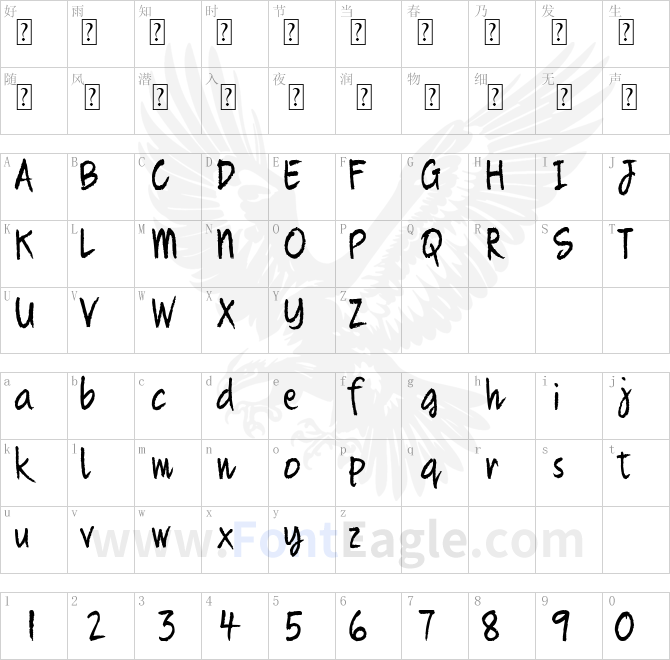
Quikhand-1 is a great font, widely used in graphic design, single-page menu design, poster design and other fields, and is deeply loved by designers.Quikhand-1 download.